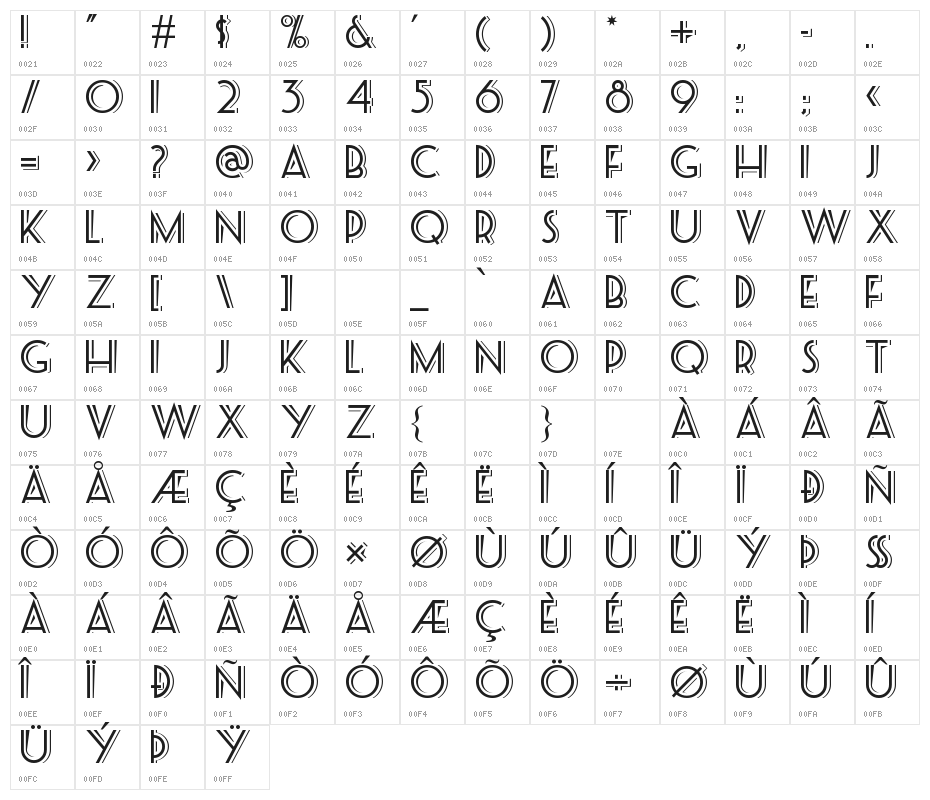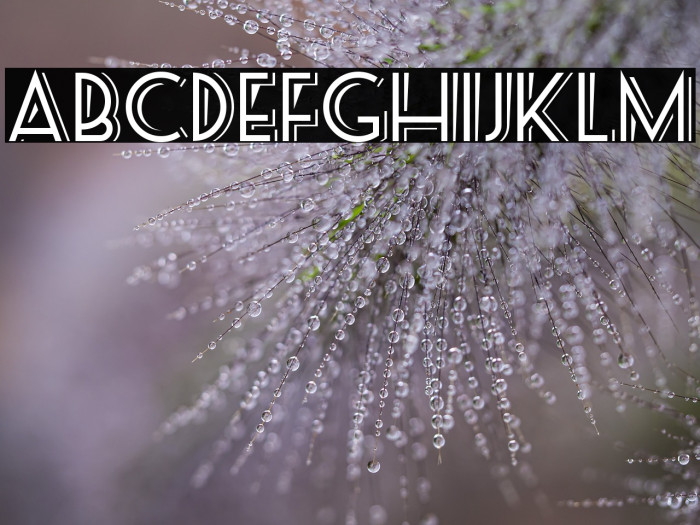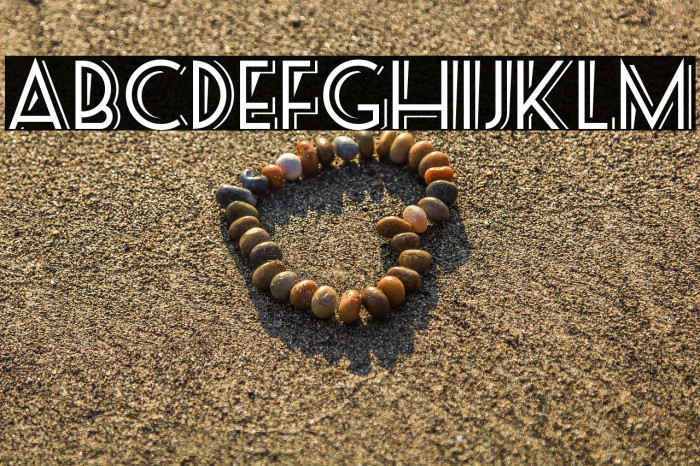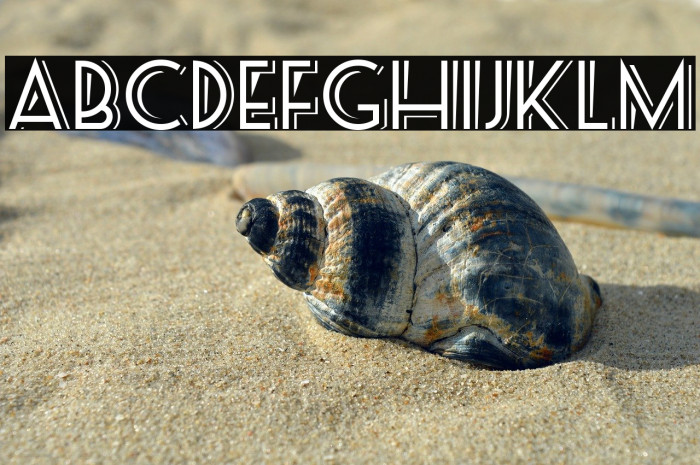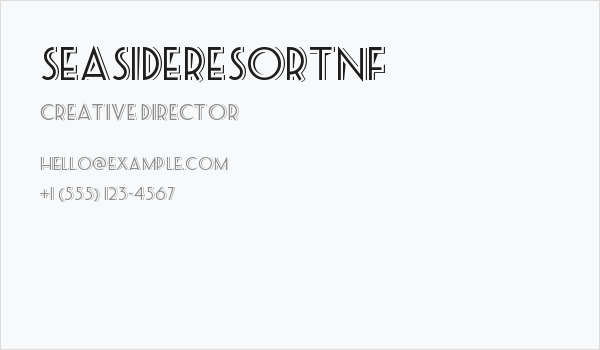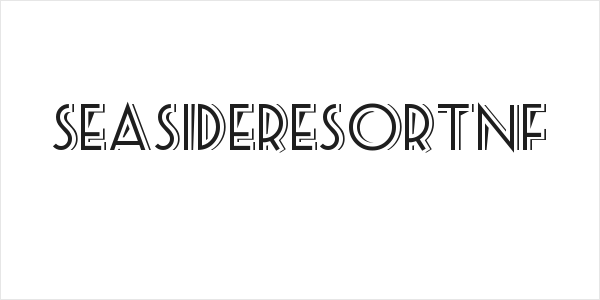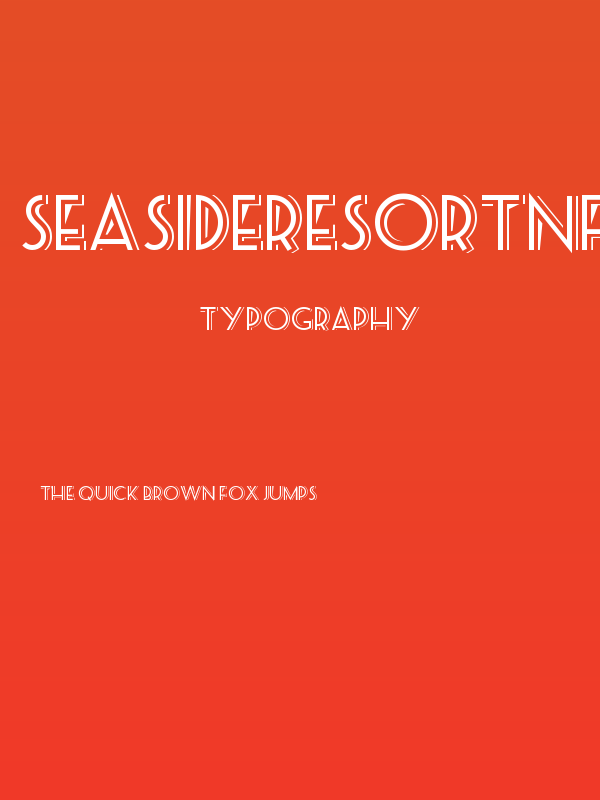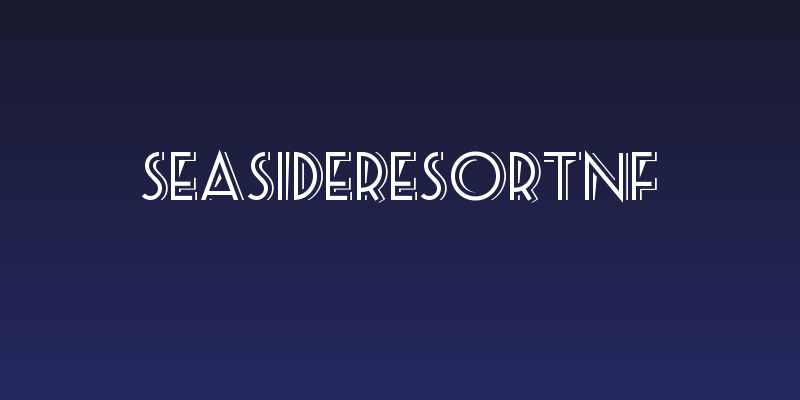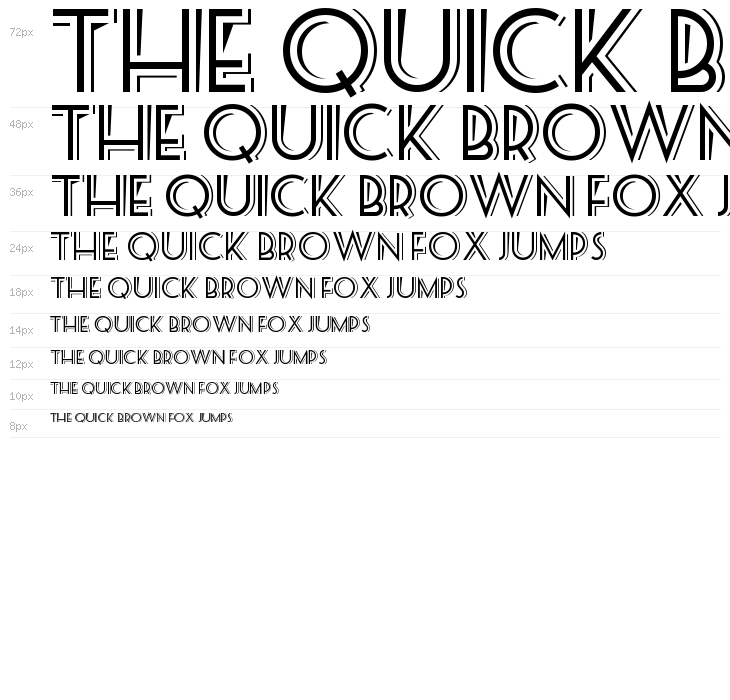
SeasideResortNF Font
SeasideResortNF Description
This font features a bold and striking Art Deco style, characterized by its geometric shapes and clean lines. The uppercase letters are particularly distinctive, with sharp angles and a sense of symmetry that captures the elegance of the early 20th century design movement. The numerals and special characters maintain this aesthetic, offering a cohesive look across all glyphs. The font's unique style is both decorative and functional, making it suitable for a variety of creative applications. Its bold presence is perfect for making a statement while maintaining readability.
| Proposed Projects | Ideal for vintage-themed posters, branding, and editorial design projects. |